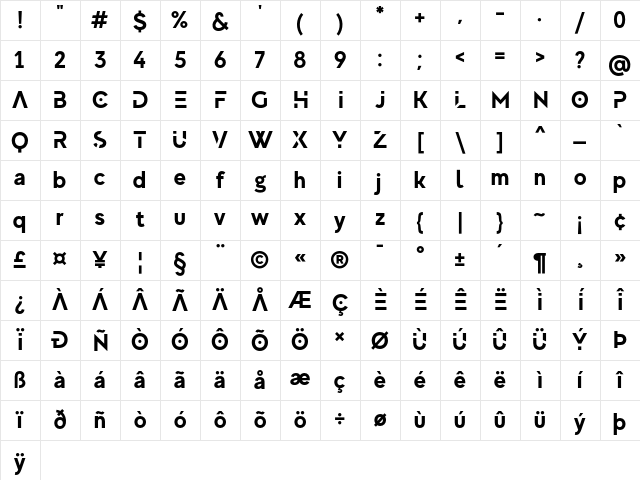
Complete MADE Evolve Sans EVO Bold glyph index. Displaying only characters natively supported by MADE Evolve Sans EVO Bold font.
MADE Evolve Sans EVO is a composed and adaptable typeface that performs quietly and consistently across a wide range of design contexts. Its bold stroke weight gives it real presence on the page.
Pro Tip: Use MADE Evolve Sans EVO in both headline and body roles to test its range before committing to a single application.